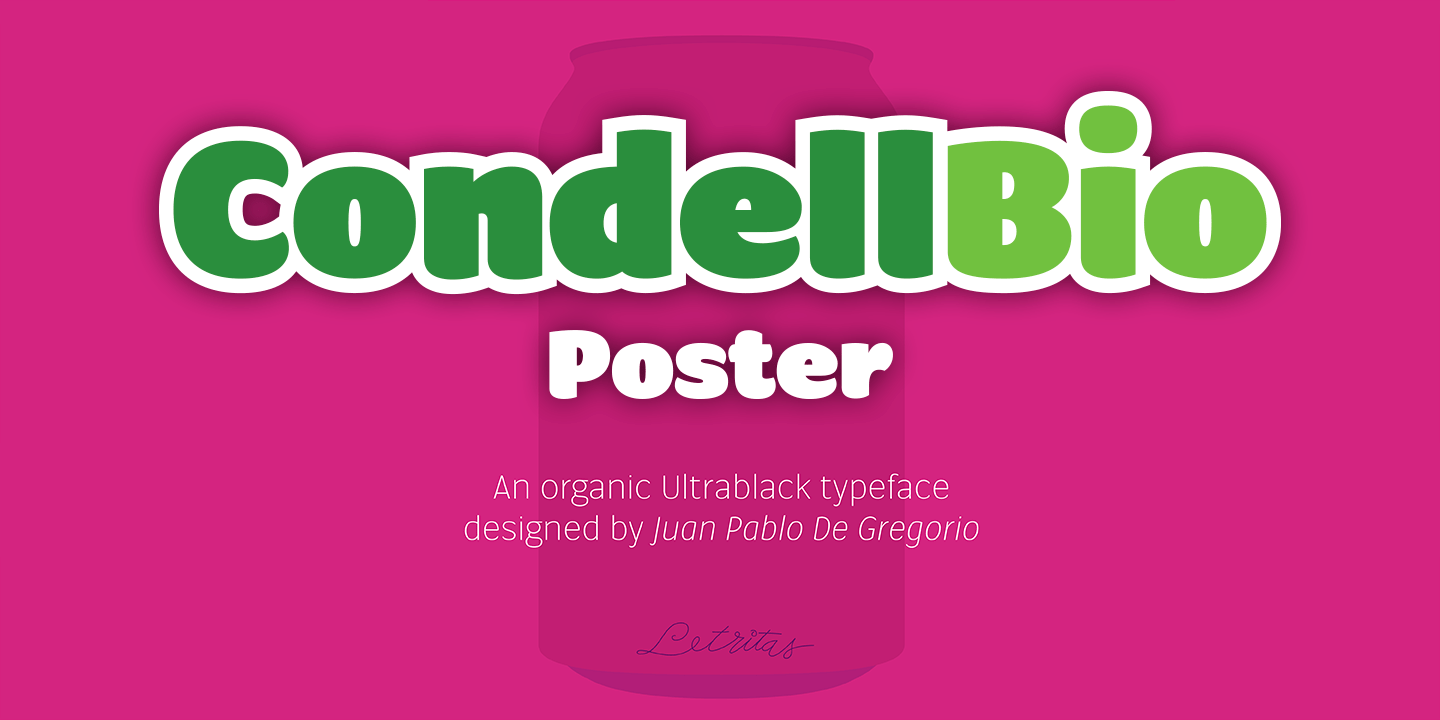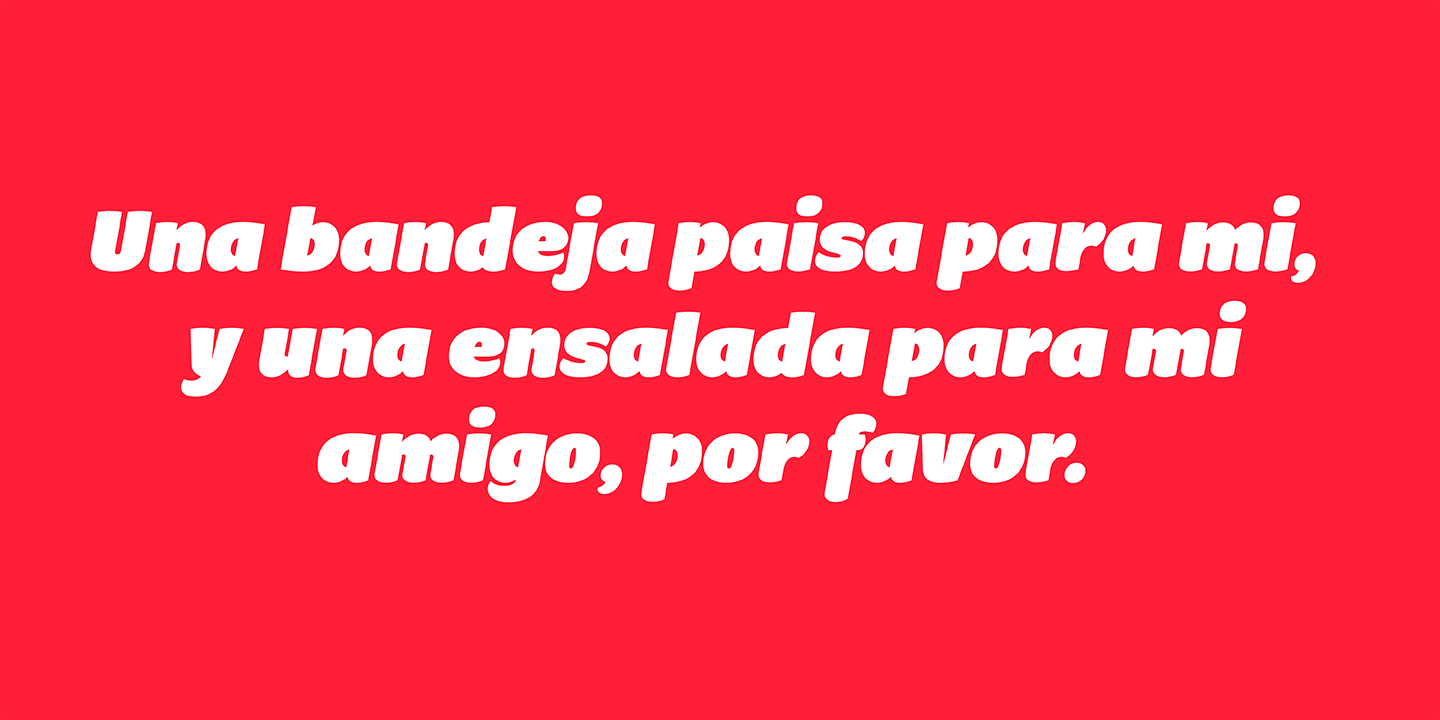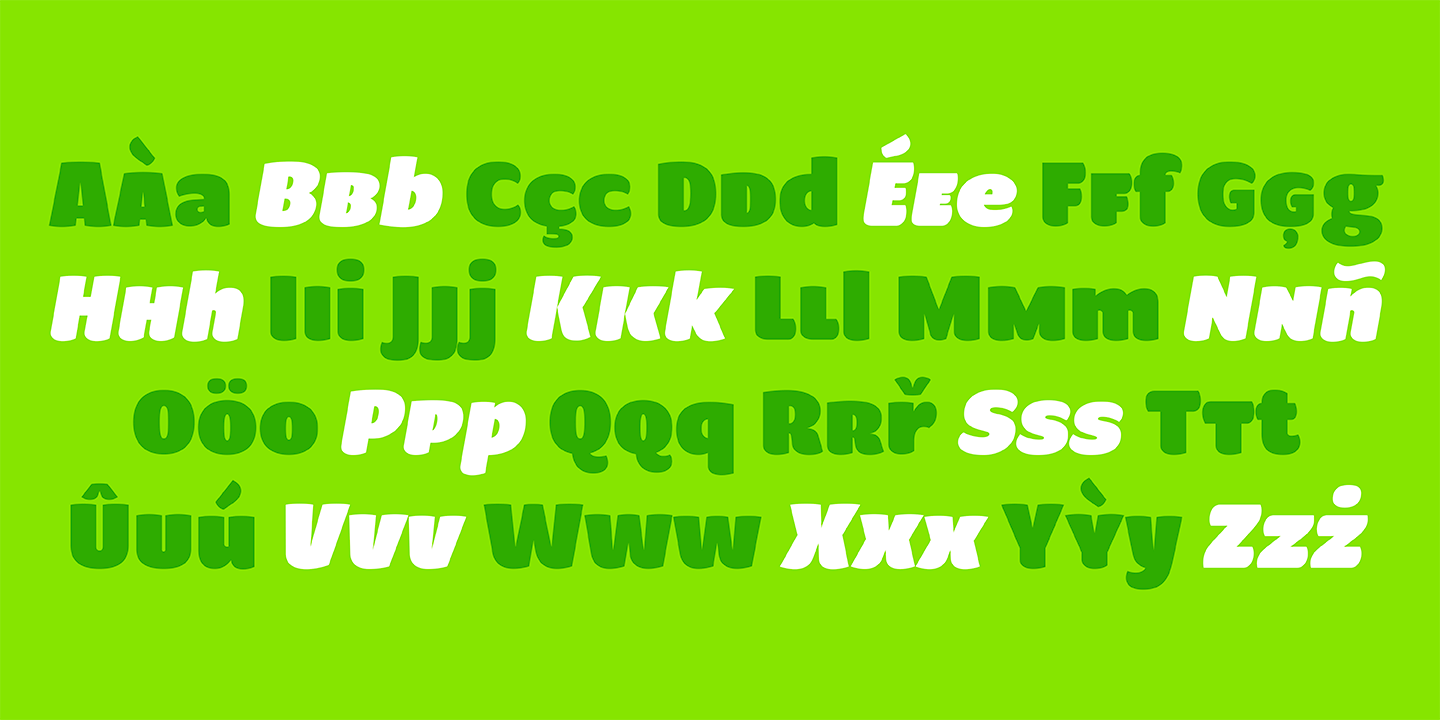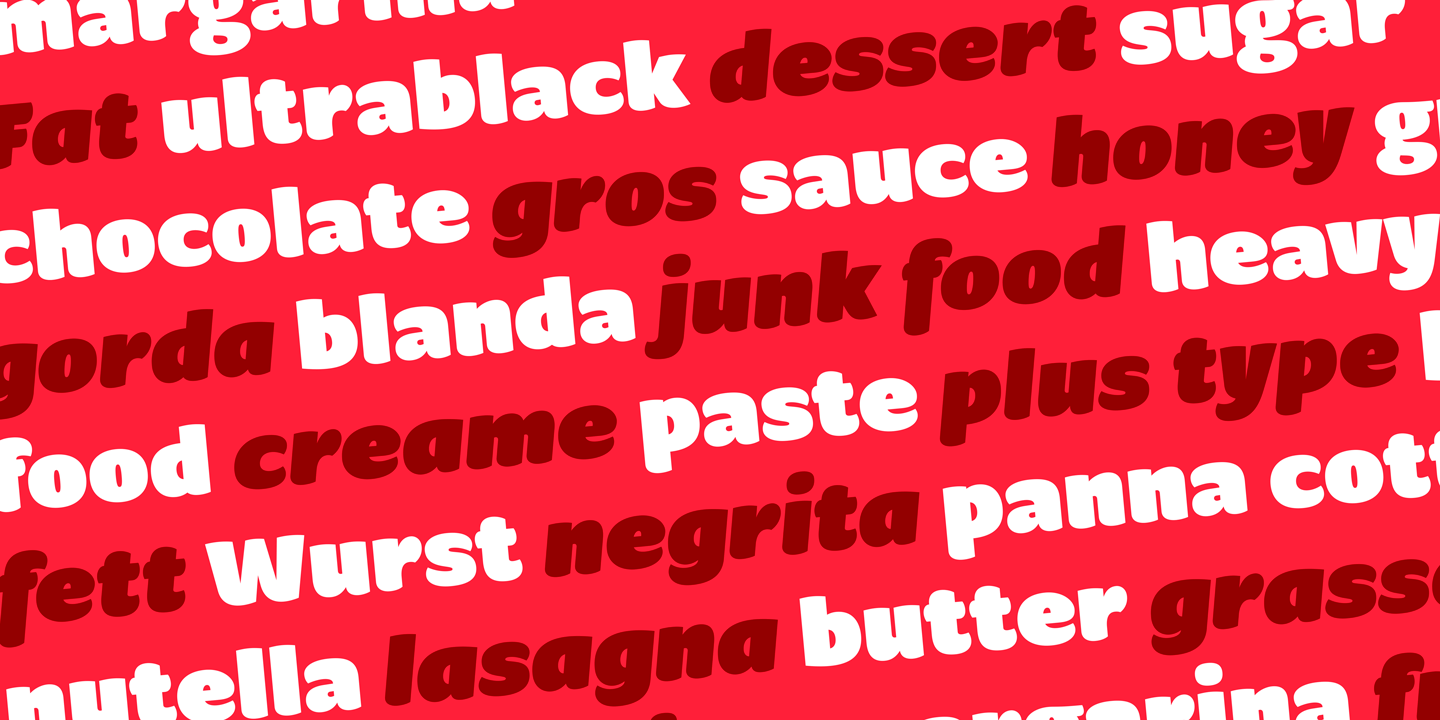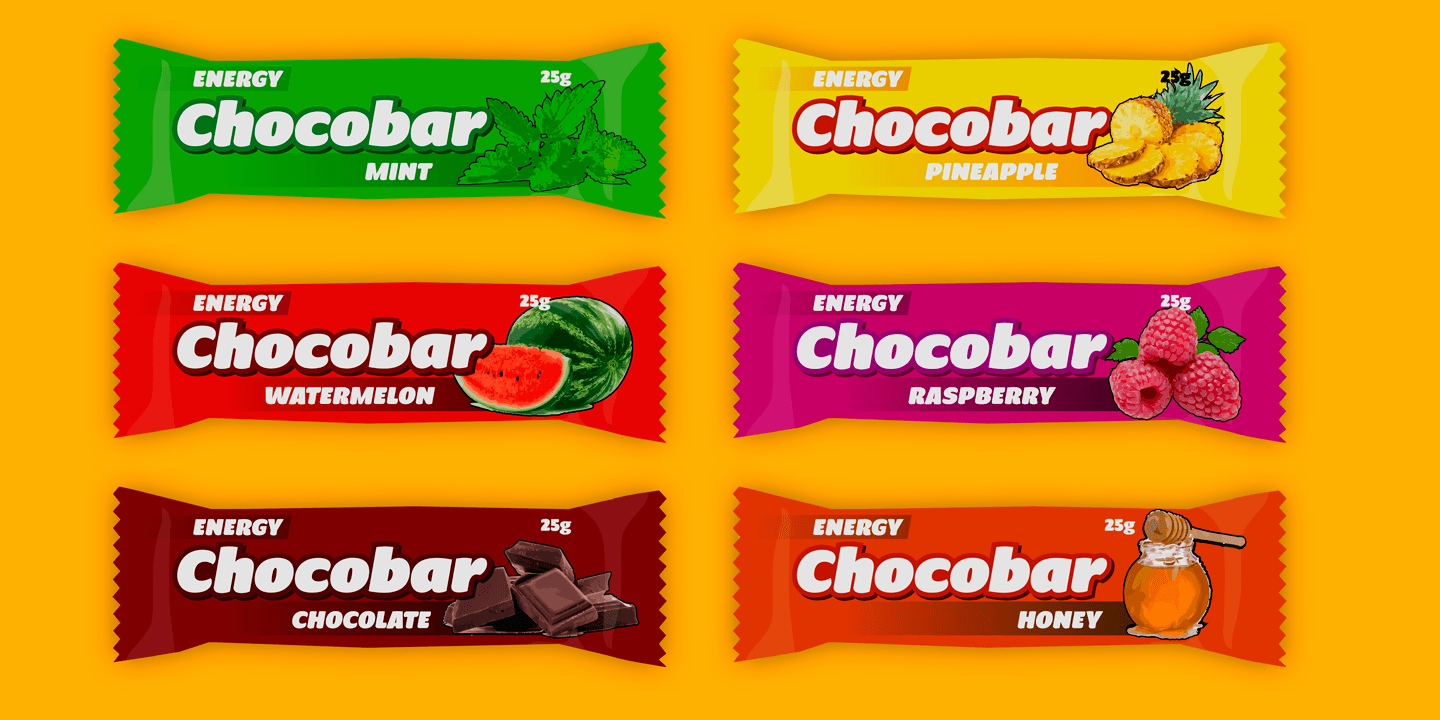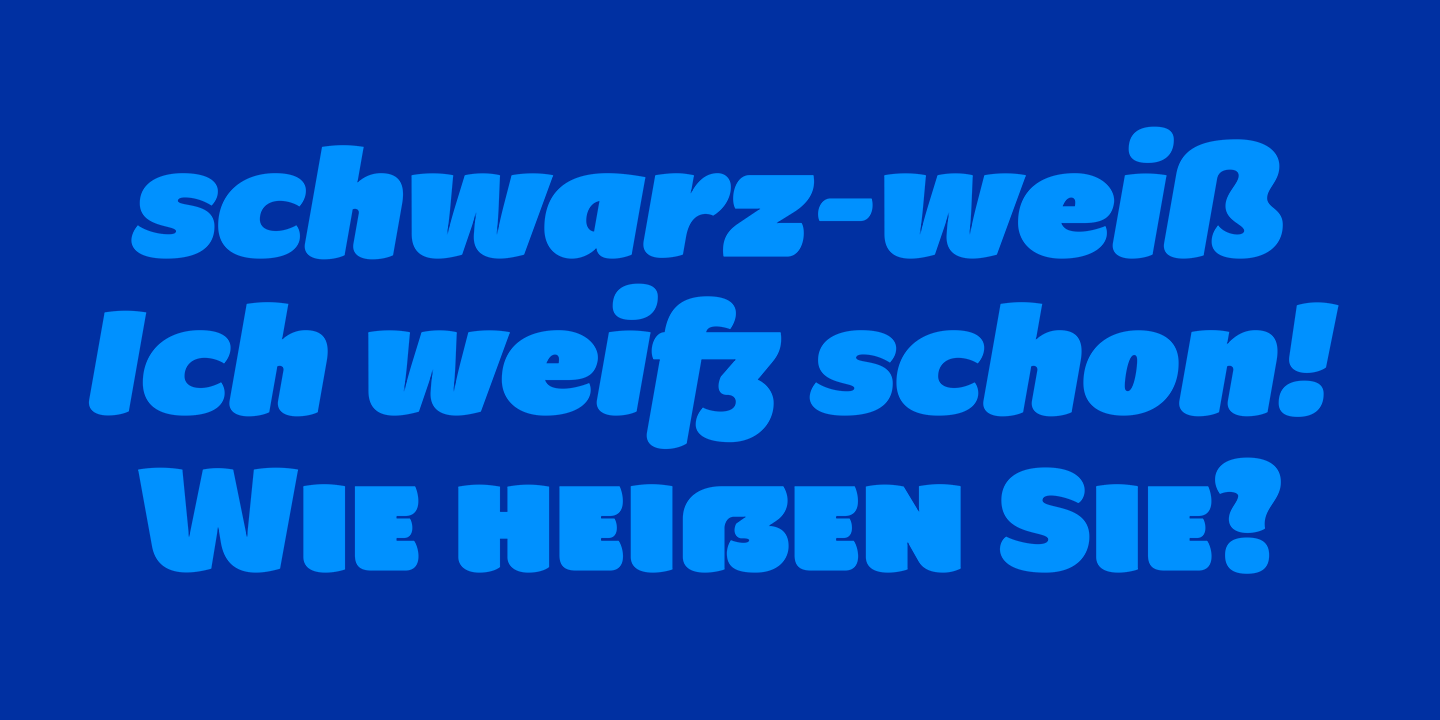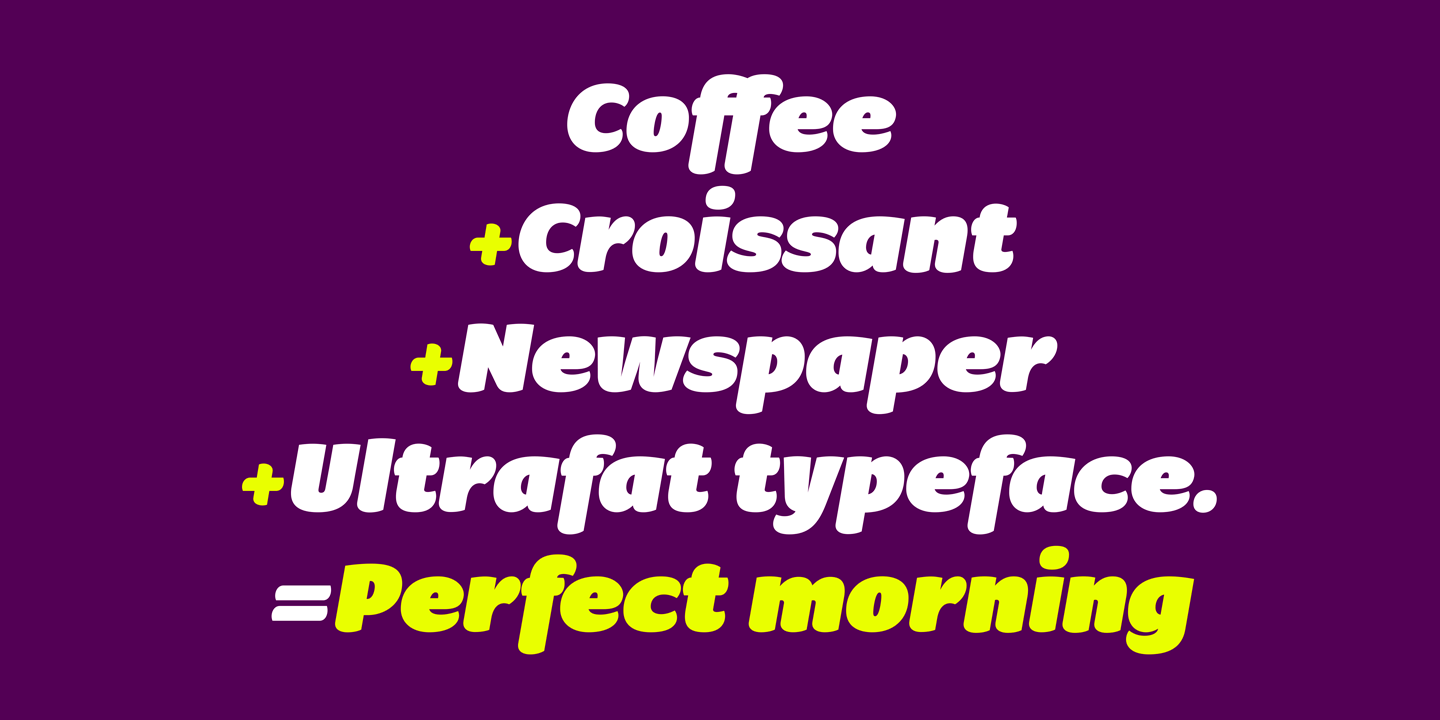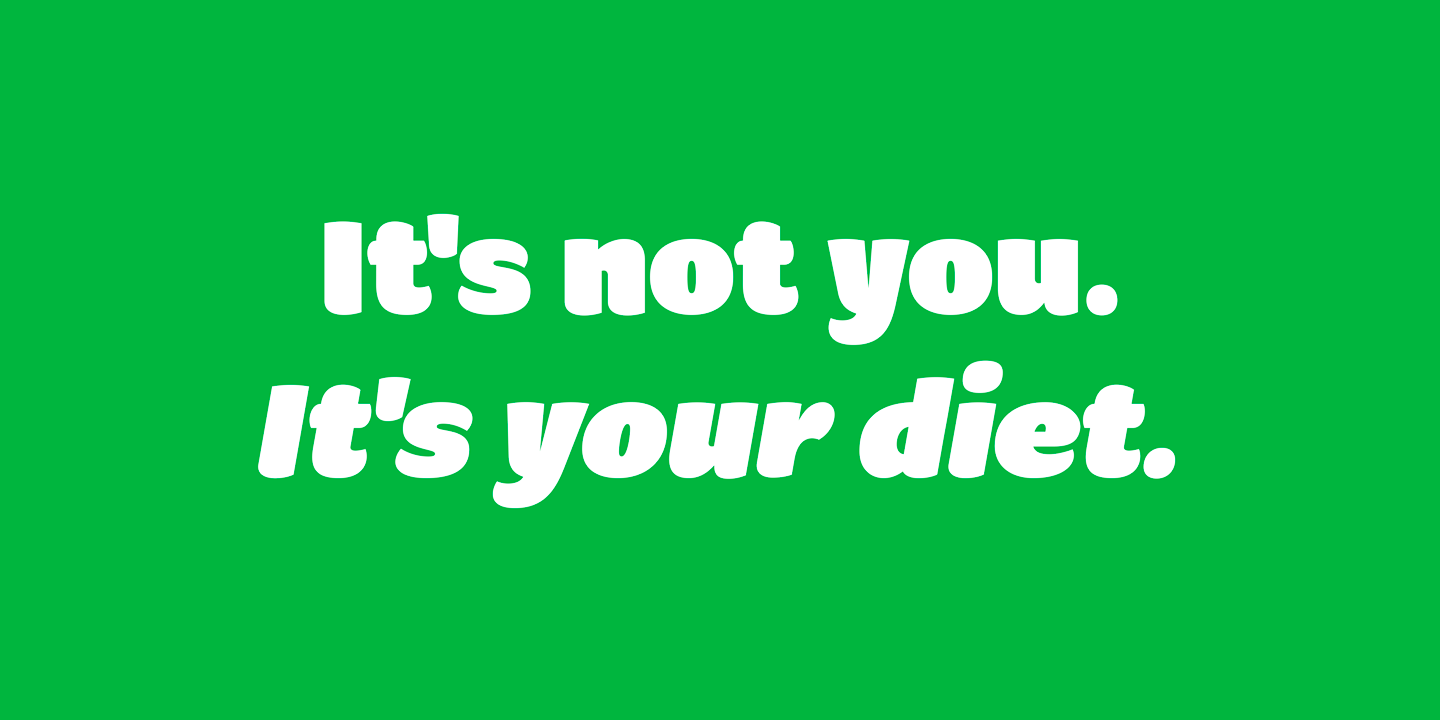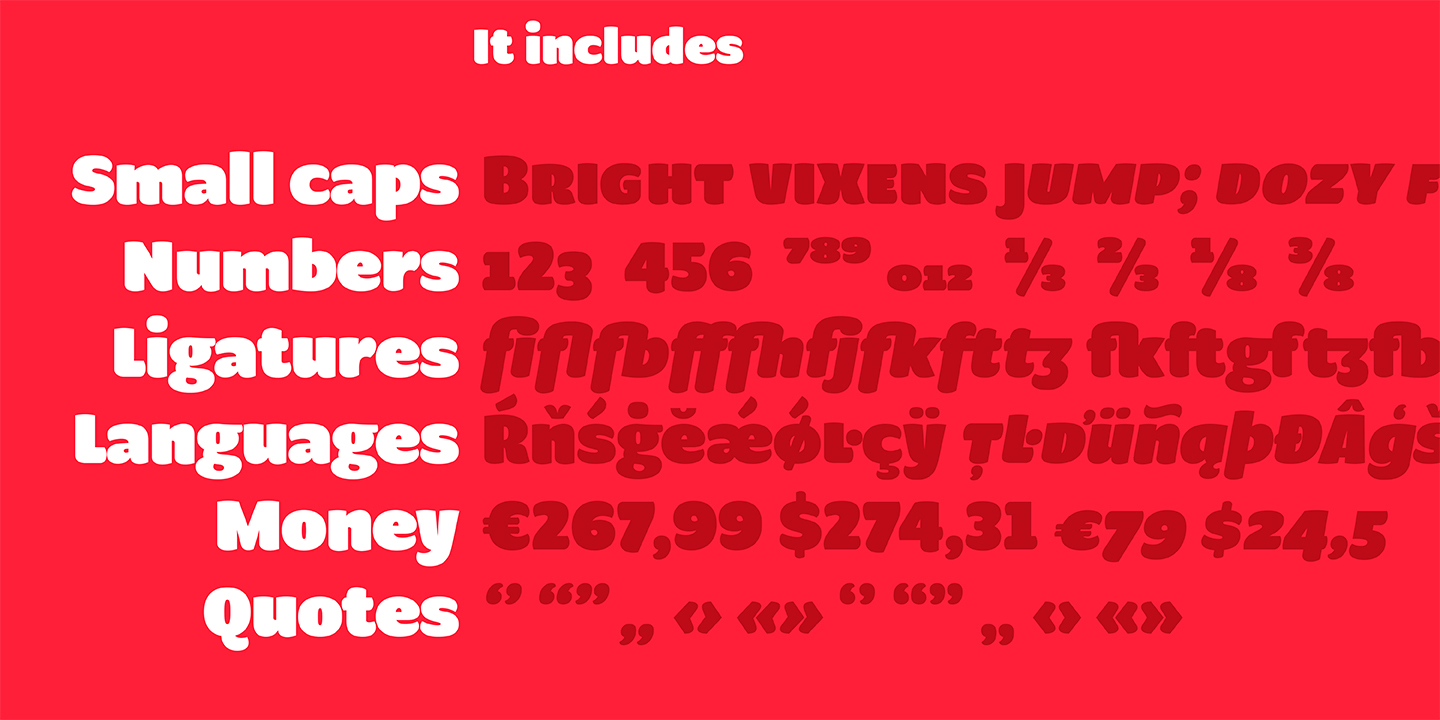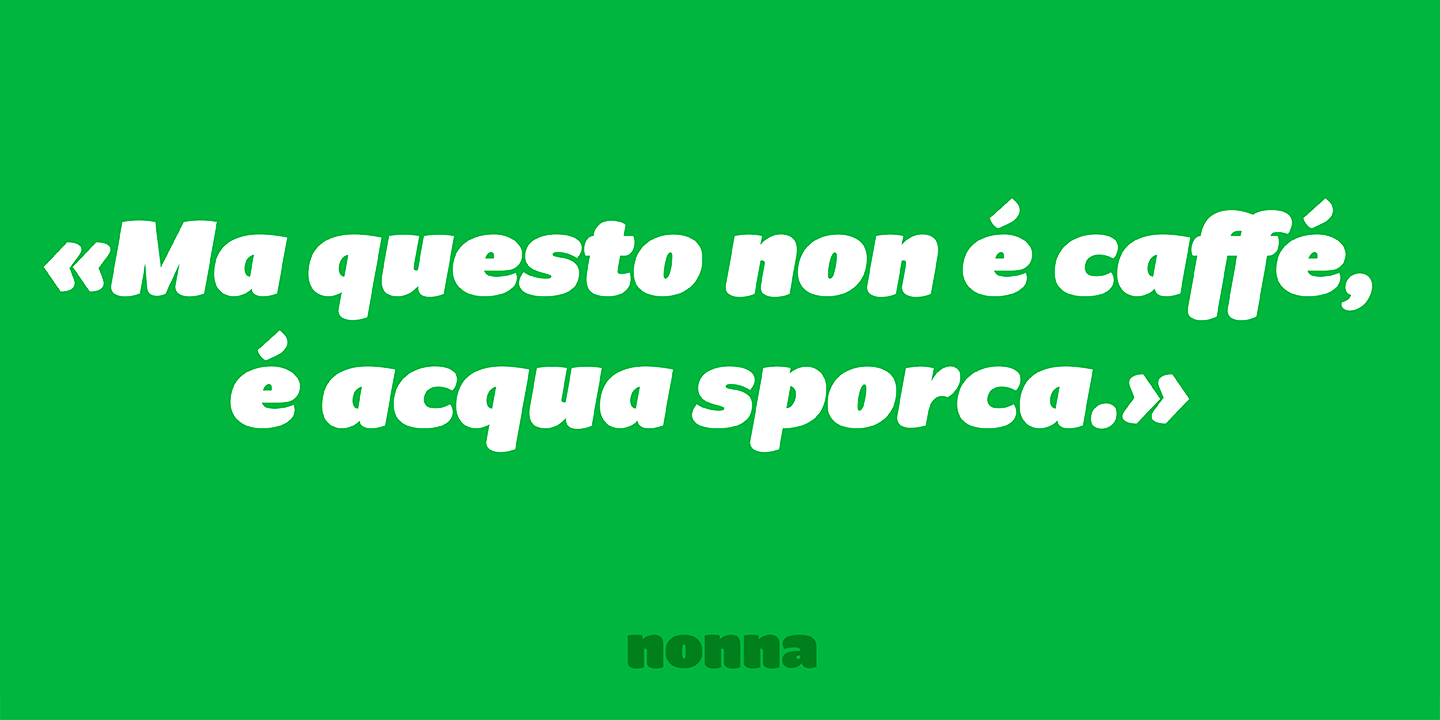
Condell Bio Poster
Font Family by Letritas
Condell Bio Poster is part of the bigger Condell family: a project who involves series of typographies who started to be conceived and developed since 2006. It also includes a bigger legibility version and a sans serif. Condell Bio is very versatile and can be employed in the agroindustrial production. Thanks to its strength and its charm, it can be used in different projects where a short and powerful message is required. For instance in a brand marketing campaign. The Condell project follows in terms of time the design of Comalle (a typography also designed by Juan Pablo de Gregorio in 2006), but if we compare them, Condell seems to look for a major range of uses rather than a mere stylistic inspiration. And even if it keeps in its shape some organic forms, Condell seems to be much more similar to a sans serif traditional typography. Condell’s fat and soft forms and its nice endings, inspired through spontaneous brush strokes, give to it a very peculiar pleasant connotation. Its Italic (10 degrees inclination) have been produced singularly, not automatically calculated by the software.
Condell Bio Poster is composed of 2 fonts: the regular and the italic. Each one of them has 599 characters and is composed of 206 languages.